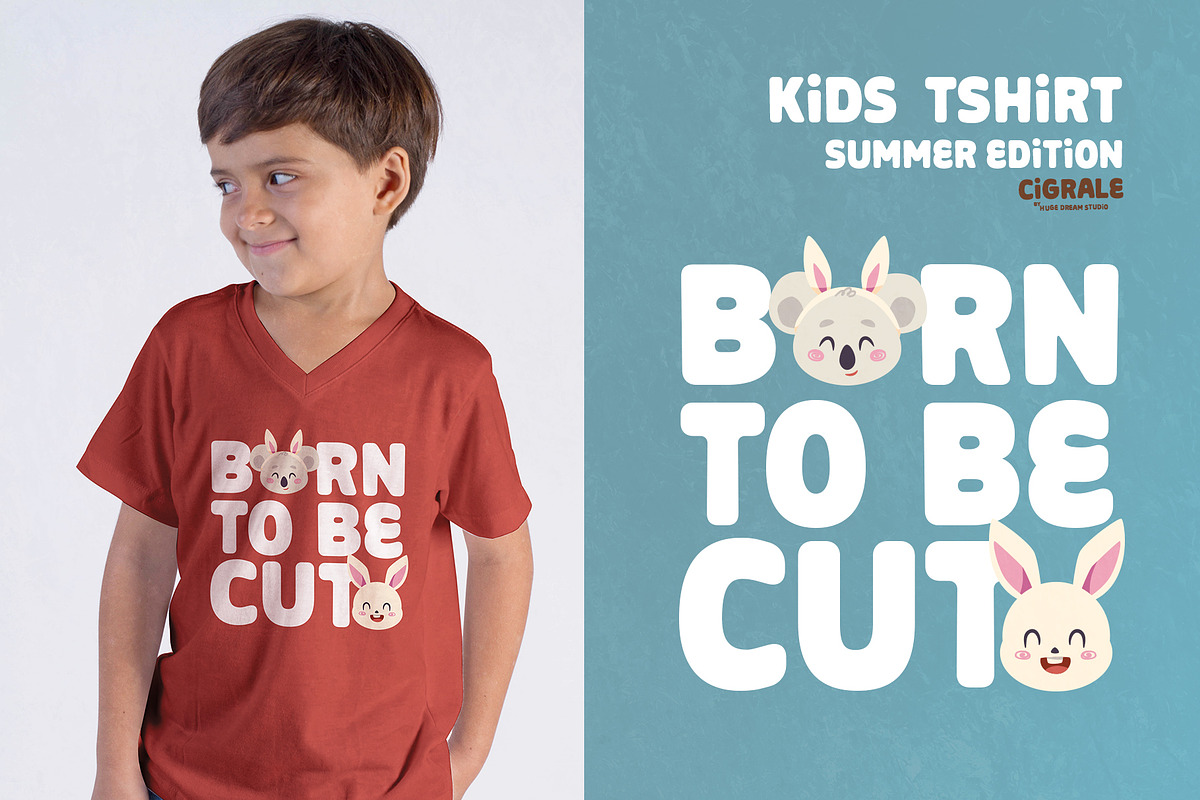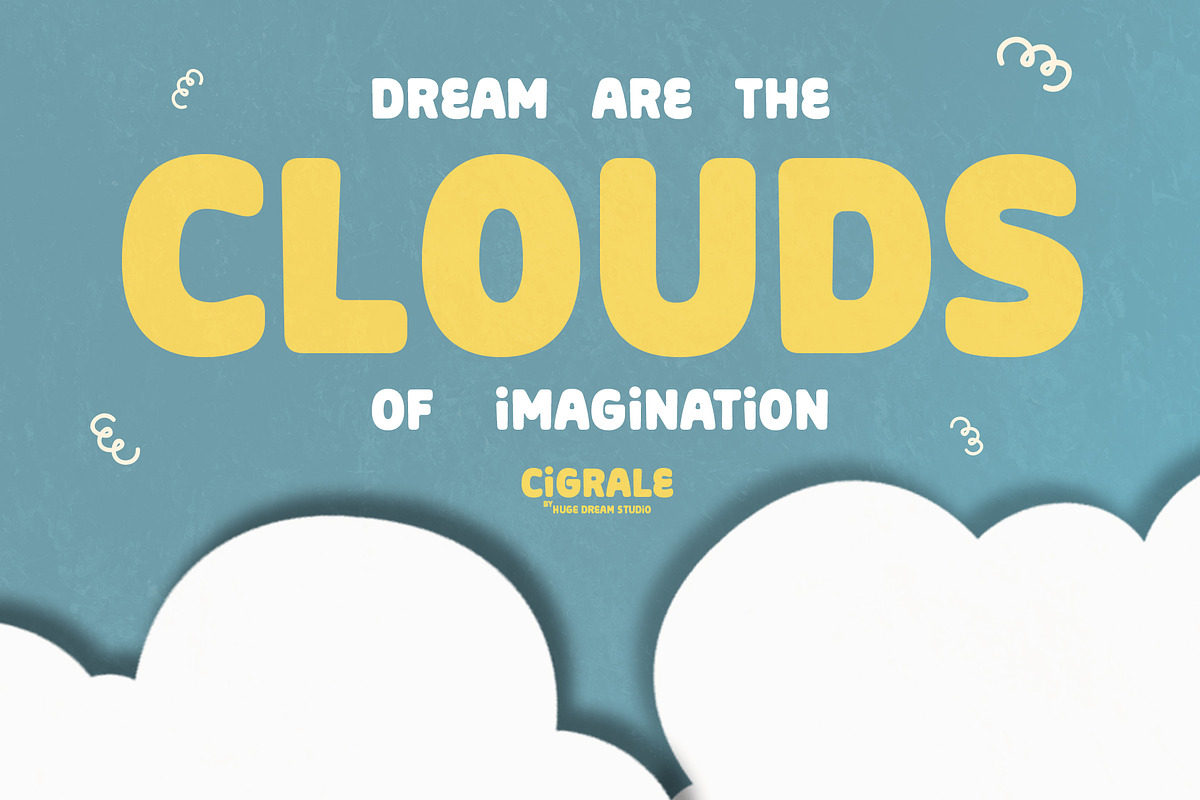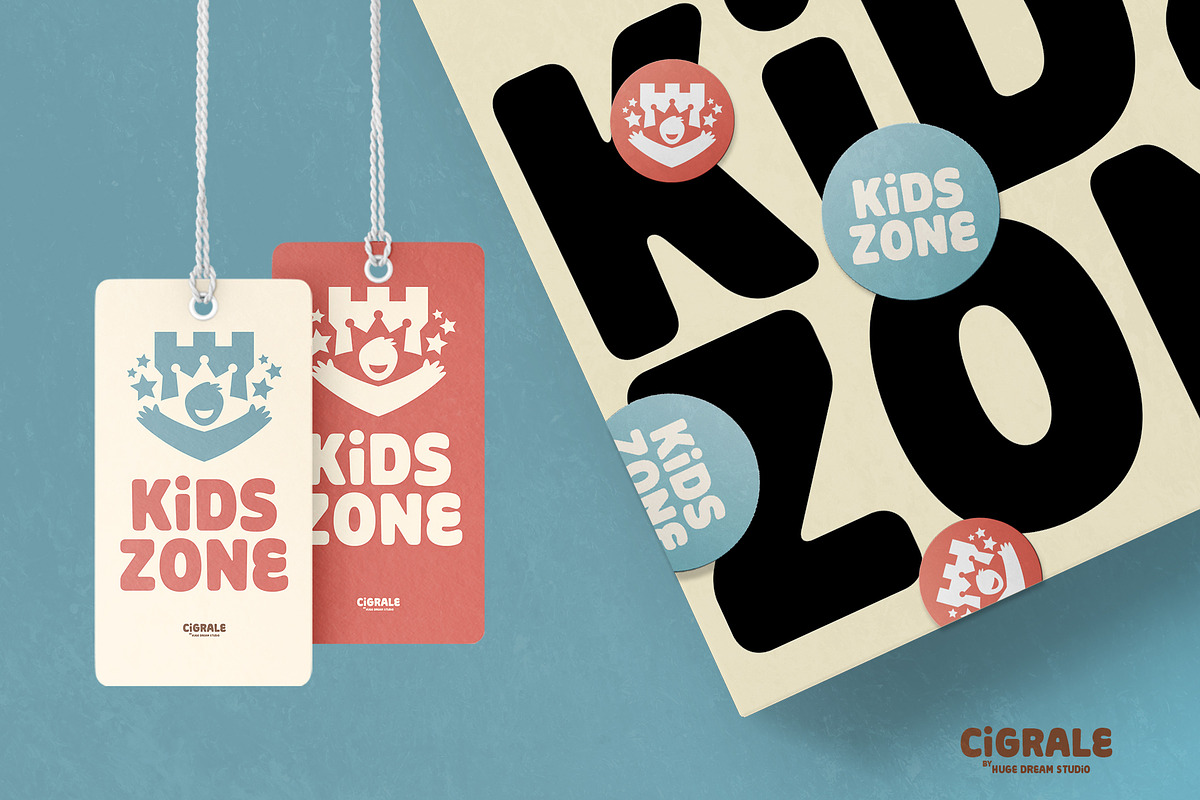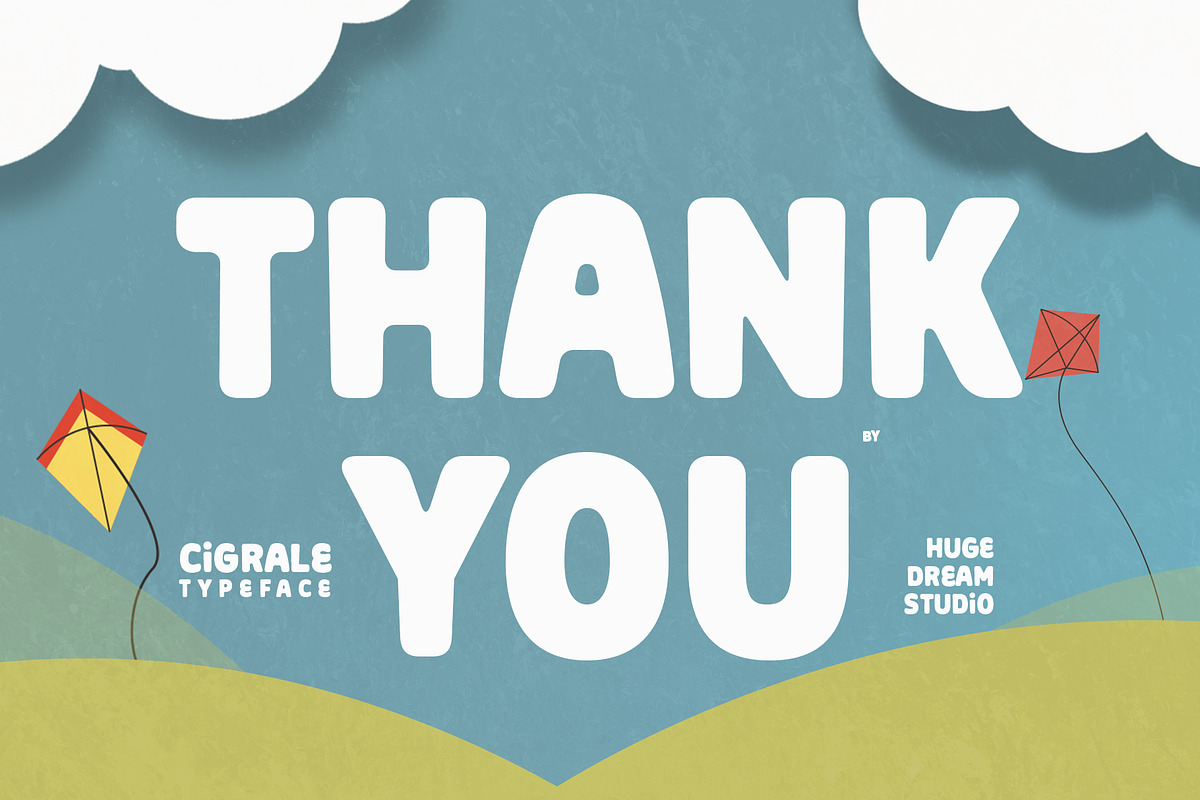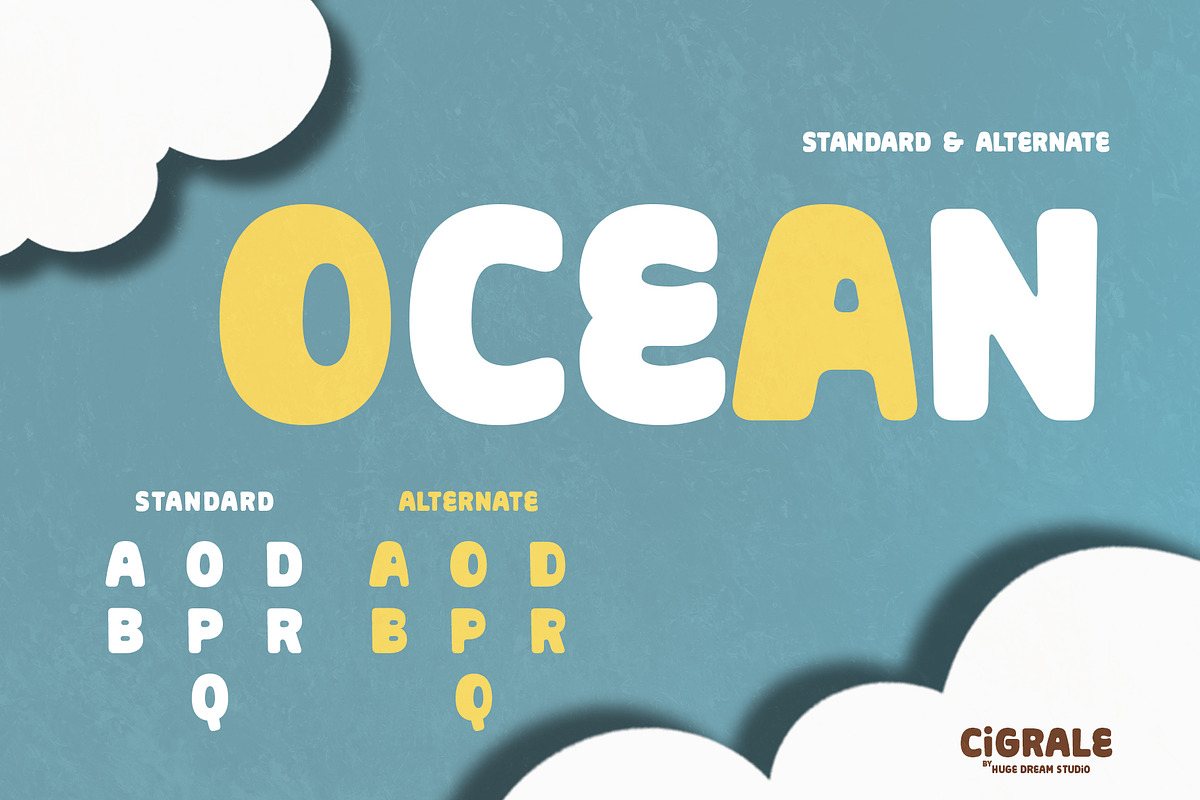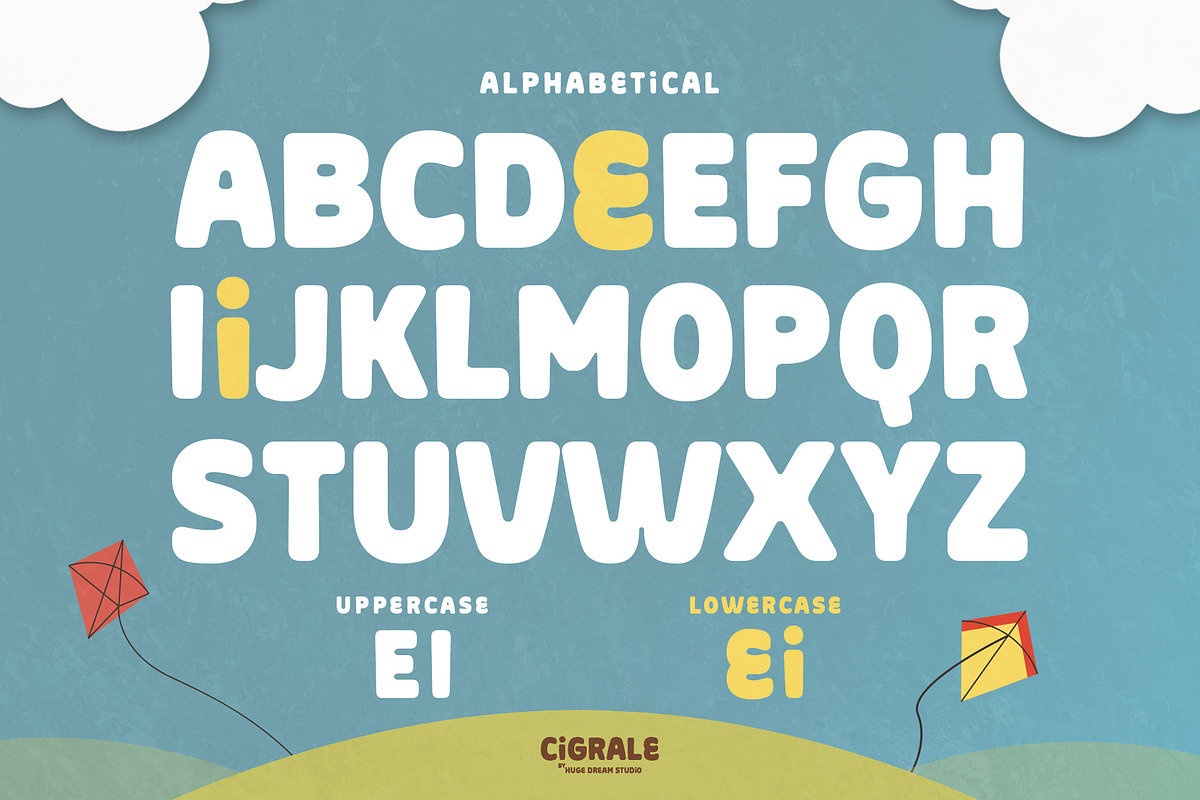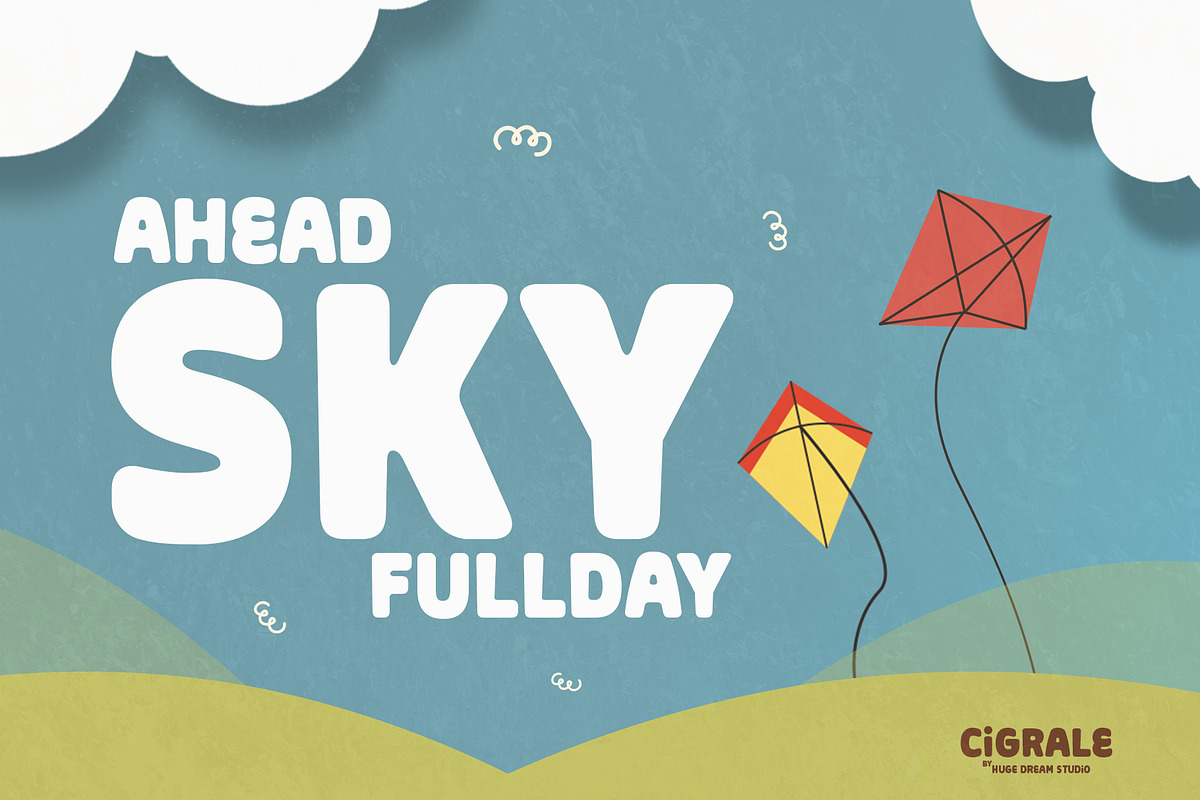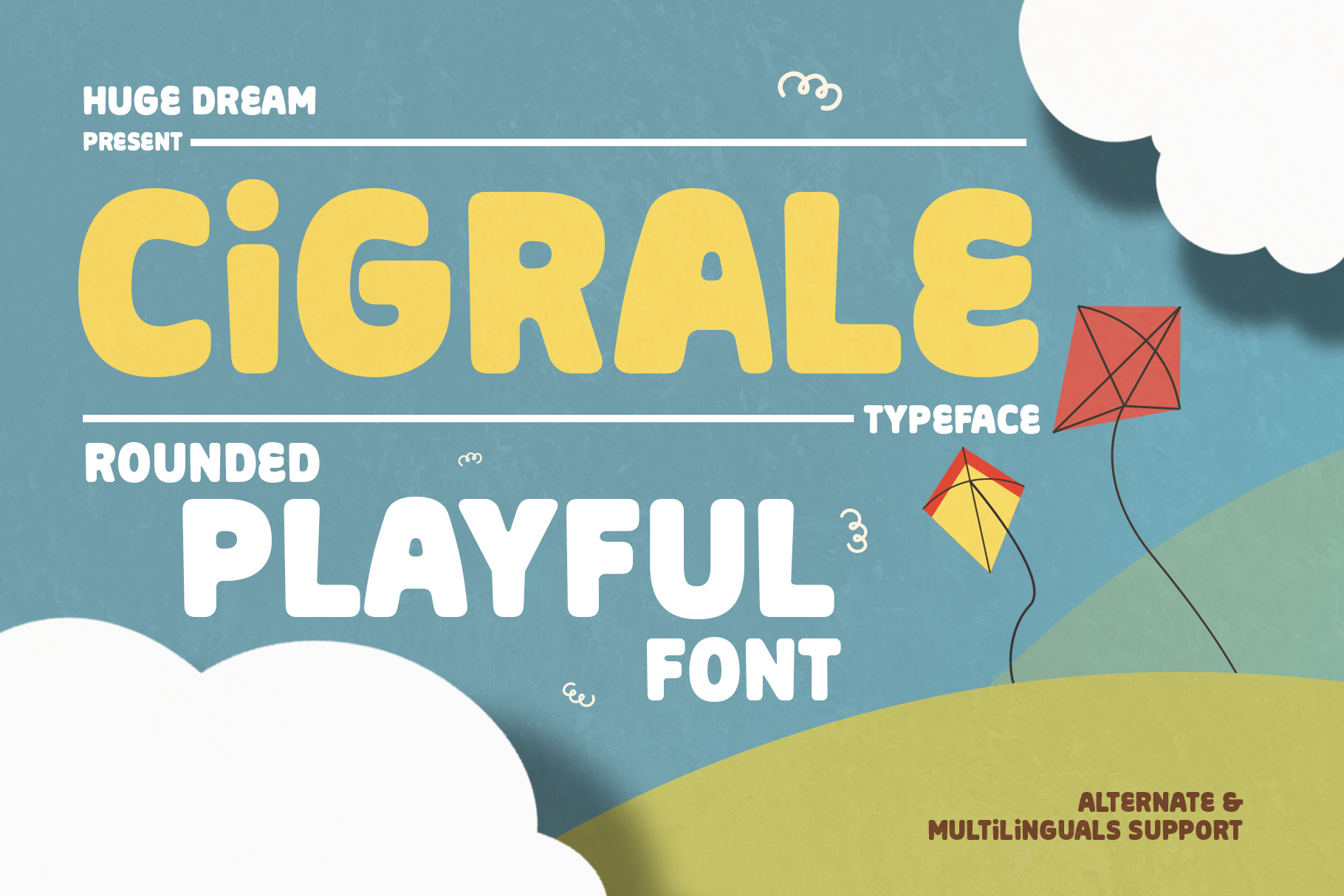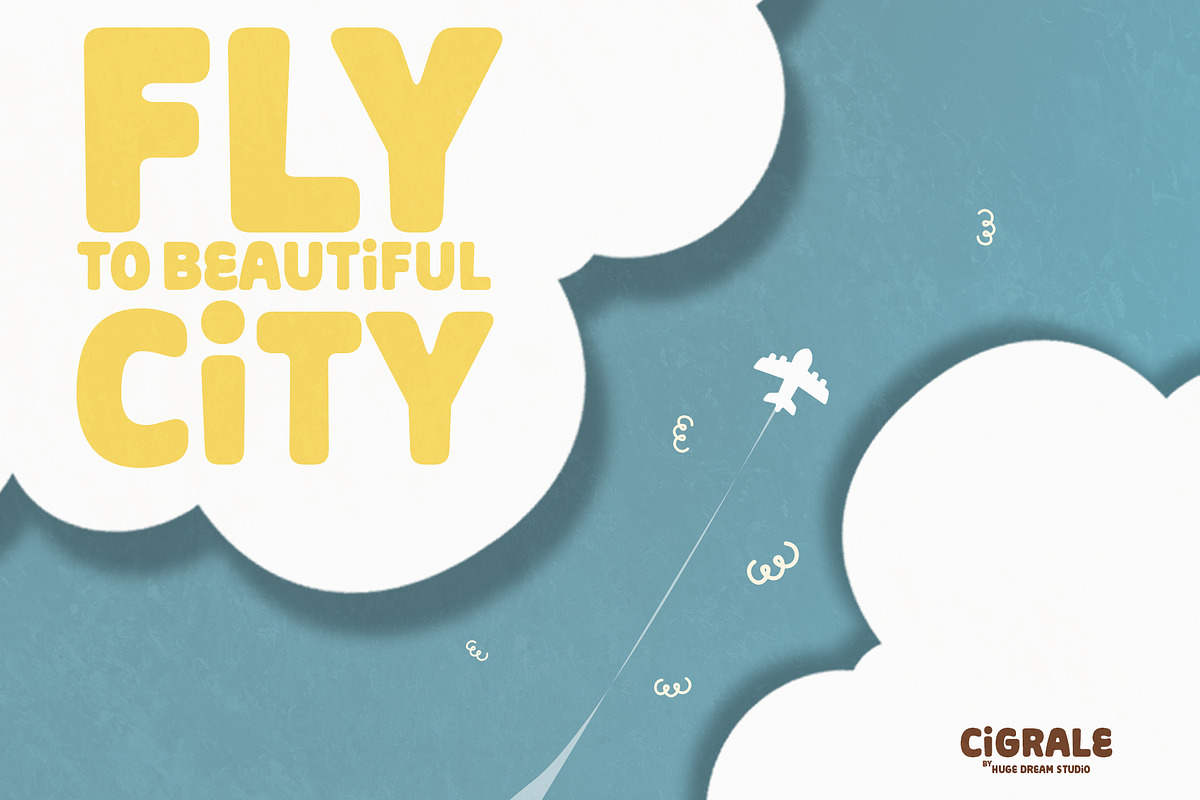
Cigrale - Rounded Playful Font
Cigrale is designed to bring a sense of playful, fun, and imagination. The letters making it perfect for projects that aim to convey a lighthearted and cheerful vibe.